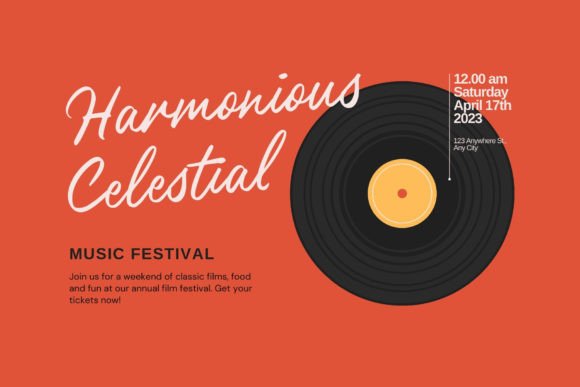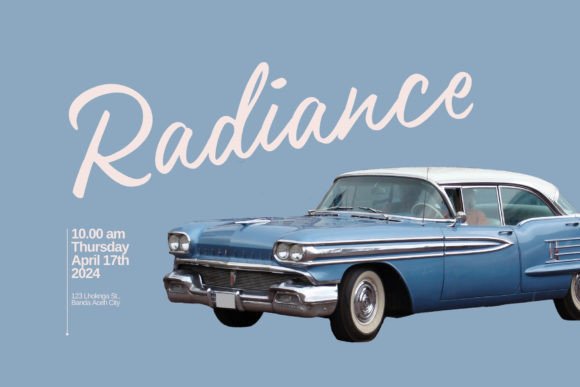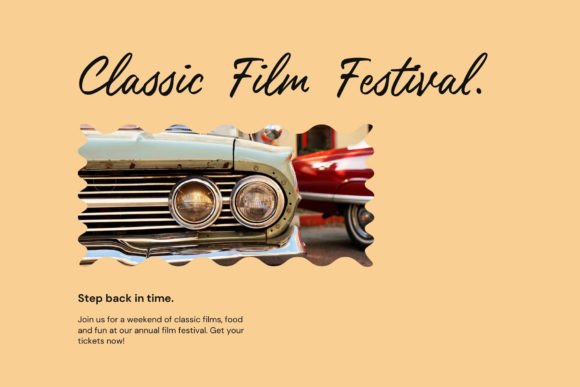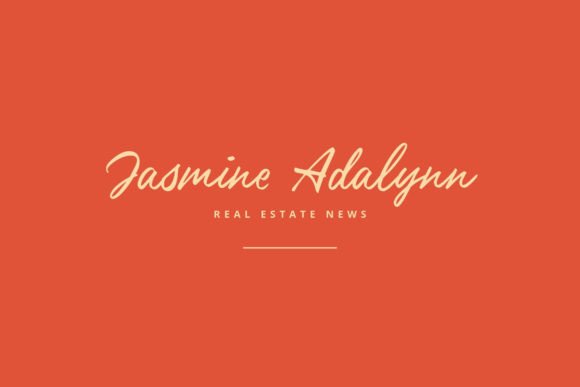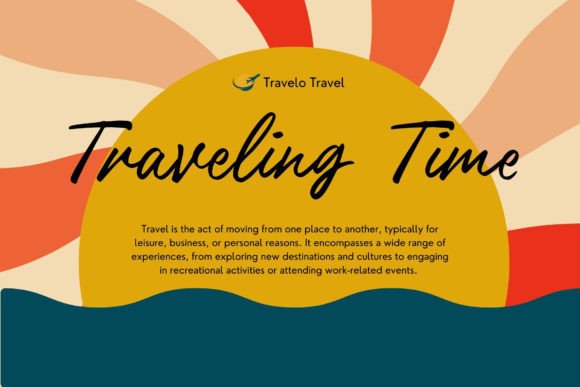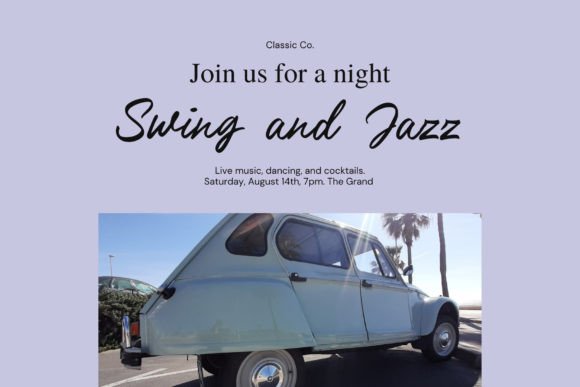
Introducing Ambrosany Font: The Ultimate Brush Script for Creative Designs
Are you a designer or crafter looking for a font that can add a touch of organic elegance to your creative projects? Look no further than Ambrosany Font, a beautifully designed brush script that effortlessly conveys a sense of natural flow and casual sophistication. In this article, we’ll explore the features and benefits of Ambrosany Font, and why it’s the perfect choice for a wide range of design applications.
What is Ambrosany Font?
Ambrosany Font is a carefully crafted brush script designed to mimic the natural flow and organic feel of hand-brushed lettering. With its unique blend of fluid strokes and subtle imperfections, this font is perfect for creating designs that exude a sense of warmth, personality, and creativity.
Key Features of Ambrosany Font
- Casual and Organic Feel: Ambrosany Font is designed to convey a sense of natural flow and effortless elegance, making it perfect for designs that require a personal touch.
- Highly Versatile: This font is suitable for a wide range of design applications, from logos and album covers to quotes, greeting cards, book covers, wedding designs, social media posts, and more.
- Easy to Read: Despite its organic feel, Ambrosany Font is highly legible, making it perfect for designs that require a clear and concise message.
- Unique Character Set: Ambrosany Font comes with a unique character set, including uppercase and lowercase letters, numbers, and punctuation marks.
Best Use Cases for Ambrosany Font
Ambrosany Font is an incredibly versatile font that can be used in a wide range of design applications. Here are some of the best use cases for this beautiful brush script:
- Logos and Branding: Ambrosany Font is perfect for creating logos and branding materials that require a personal touch and a sense of organic elegance.
- Album Covers and Music Design: This font is ideal for creating album covers, music posters, and other music-related designs that require a creative and artistic touch.
- Quotes and Typography: Ambrosany Font is perfect for creating inspirational quotes, typographic posters, and other designs that require a clear and concise message.
- Greeting Cards and Stationery: This font is suitable for creating greeting cards, stationery, and other paper products that require a personal touch.
- Book Covers and Publishing: Ambrosany Font is a great choice for creating book covers, e-book designs, and other publishing materials that require a creative and eye-catching design.
- Wedding Designs and Events: This font is perfect for creating wedding designs, event invitations, and other wedding-related materials that require a touch of elegance and sophistication.
- Social Media Posts and Graphics: Ambrosany Font is suitable for creating social media posts, graphics, and other online materials that require a creative and artistic touch.
Why Choose Ambrosany Font?
So why choose Ambrosany Font over other brush scripts and fonts? Here are just a few reasons why this font stands out from the crowd:
- Unique and Creative: Ambrosany Font is a truly unique and creative font that can add a touch of personality and elegance to your designs.
- Highly Versatile: This font is suitable for a wide range of design applications, making it a great investment for designers and crafters.
- Great Value: With its high-quality design and versatility, Ambrosany Font offers great value for designers and crafters who want to create stunning designs.
| Author | getstudio |
In conclusion, Ambrosany Font is a beautifully designed brush script that is perfect for designers and crafters who want to add a touch of organic elegance to their creative projects. With its casual and organic feel, highly versatile design, and easy-to-read characters, this font is suitable for a wide range of design applications. Whether you’re creating logos, album covers, quotes, greeting cards, book covers, wedding designs, social media posts, or more, Ambrosany Font is the perfect choice. So why wait? Download Ambrosany Font today and start creating stunning designs that exude a sense of natural flow and elegance!